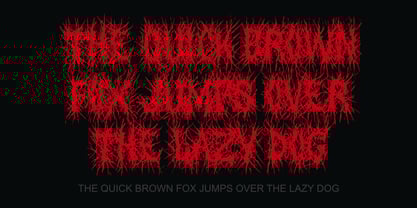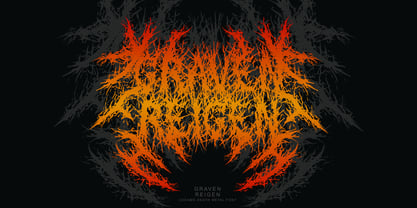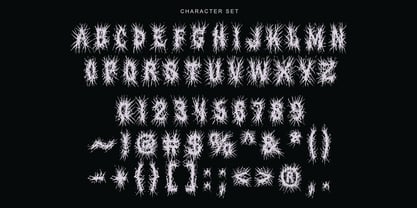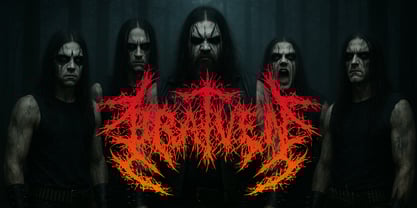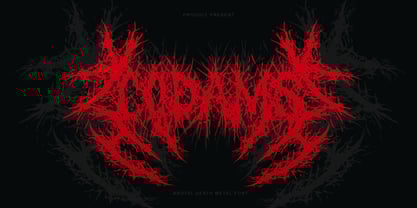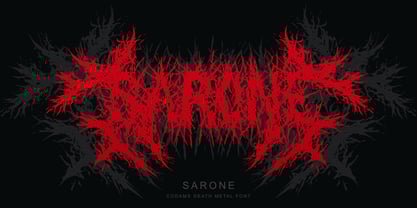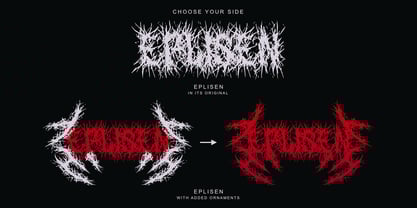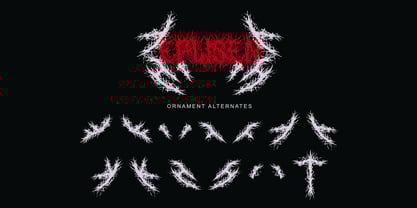
Codams
by Sealoung
The Codams Font Family was designed by Saiful Anwar and published by Sealoung. Codams contains 1 styles.
Awaken the chaos with CODAMS — a font forged from the ferocity of Brutal Death Metal. Inspired by the relentless aggression and dark majesty of the genre, CODAMS captures the essence of destruction, raw energy, and uncompromising power. This is not just a typeface—it’s a weapon for those who live and create on the edge.
Every glyph in CODAMS is carved to resemble shattered bones, twisted steel, and blood-soaked stone. Its savage structure and serrated forms reflect the sonic violence of Brutal Death Metal, making it perfect for band logos, underground zines, tour merch, and extreme visual identities.
Whether you're branding a festival that tears open the earth or crafting apparel that bleeds rebellion, CODAMS delivers a visual assault that can’t be ignored. With full character support, symbols, and multilingual capabilities, this font is ready to dominate across borders and mediums.
Why CODAMS Shreds:
Aggressive Design: Ripped straight from the depths of the underground metal scene.
Primal Energy: Built with jagged precision to reflect true brutality.
Total Versatility: Adaptable to various creative needs—from logos to social media banners, physical prints, and beyond.
For True Fans: Crafted with the heart of a metalhead—raw, real, and ruthless.
Unleash the sonic apocalypse in visual form. CODAMS doesn’t ask for attention—it devours it.
Codams features:
• A full set of uppercase
• Numbers and punctuation
• Multilingual language support
• PUA Encoded Characters
• OpenType Features
• Ornaments Alternates